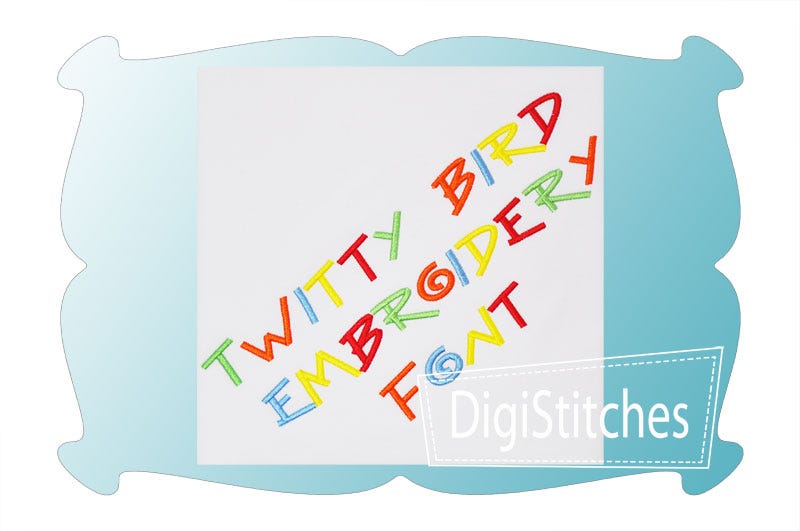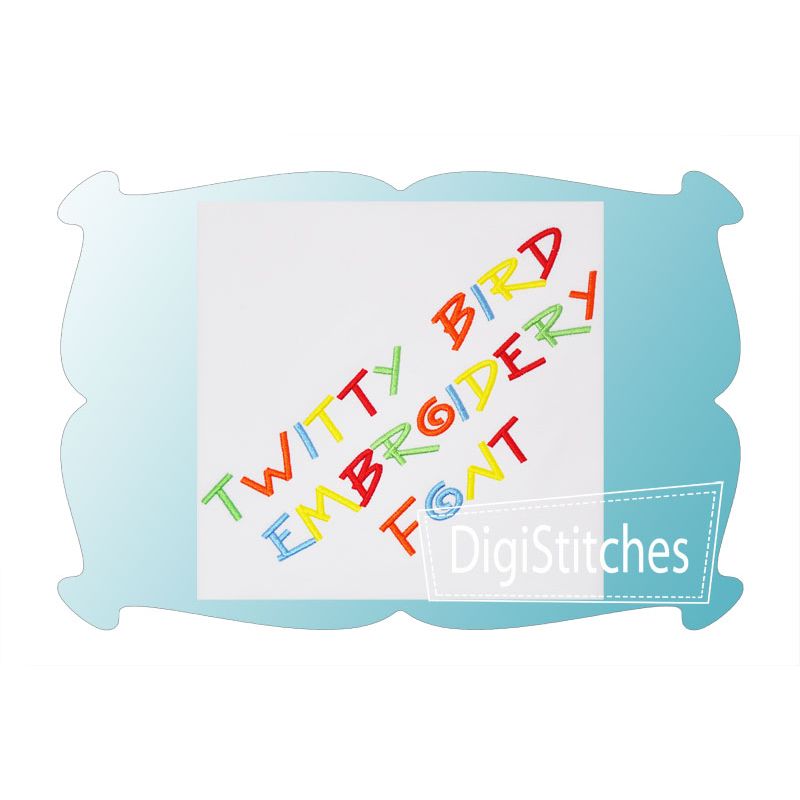
Twitty Bird Satin Stitch Embroidery Font
Twitty Bird Embroidery Font
Twitty Bird Embroidery Font embroidery font is a fun and unique font!
Featuring super bold letters that really stand out on t-shirts and projects. A great font for both boys and girls!